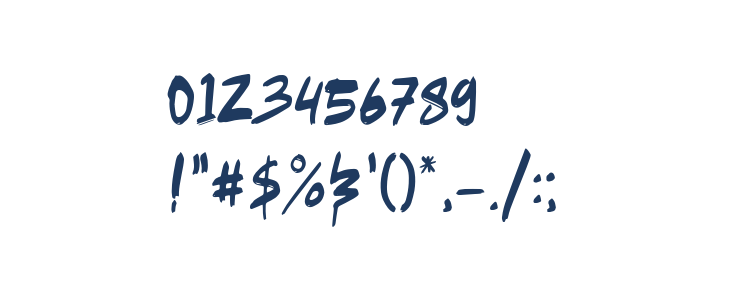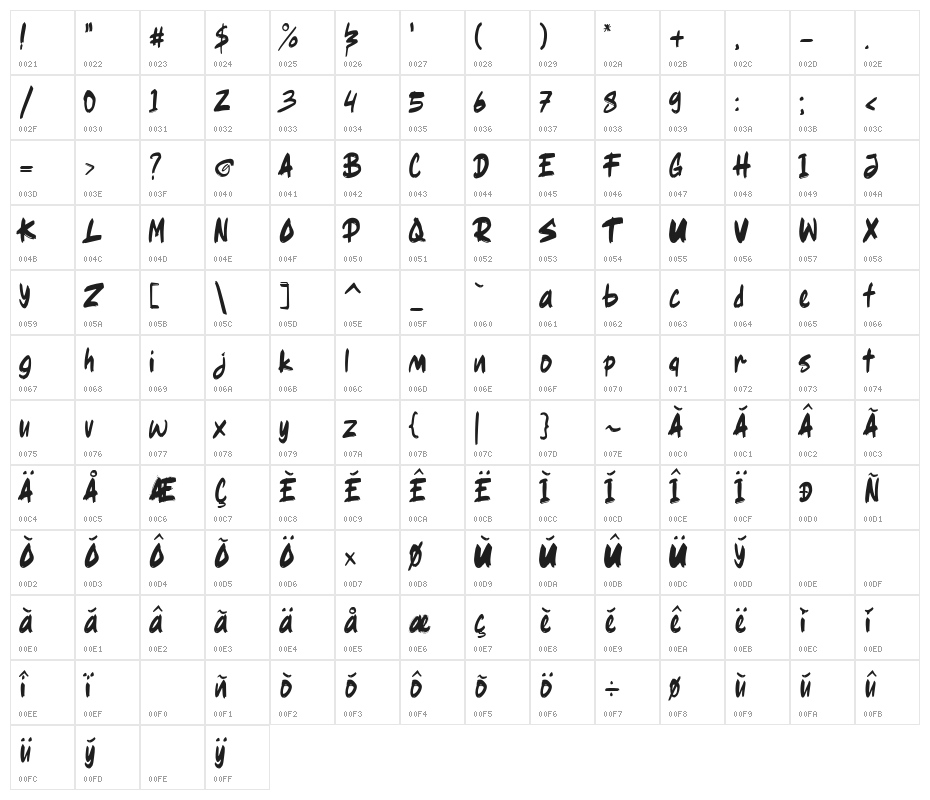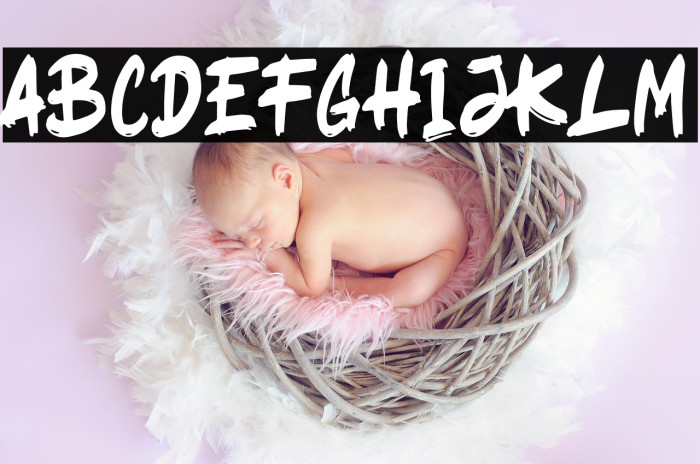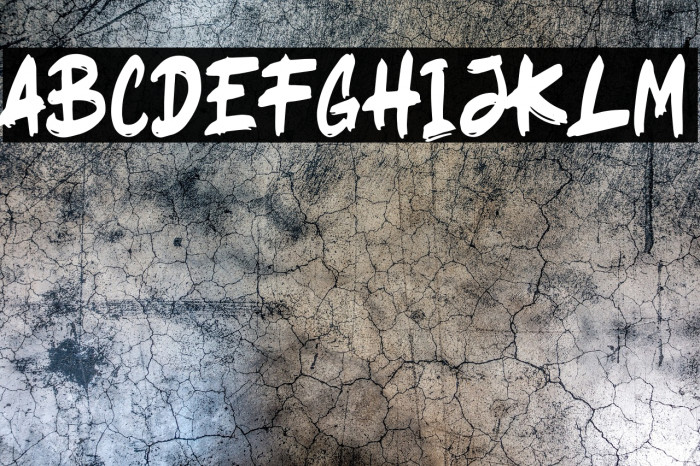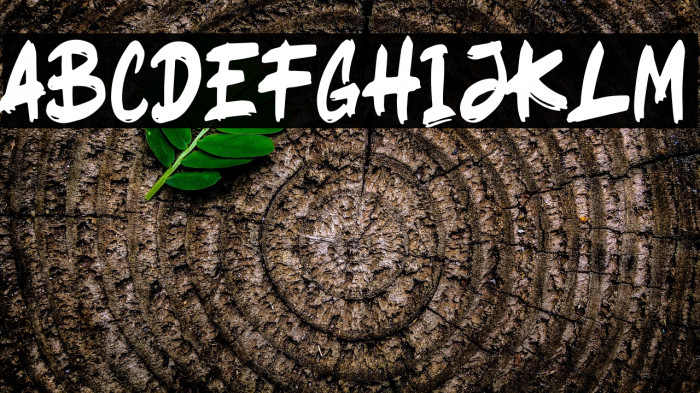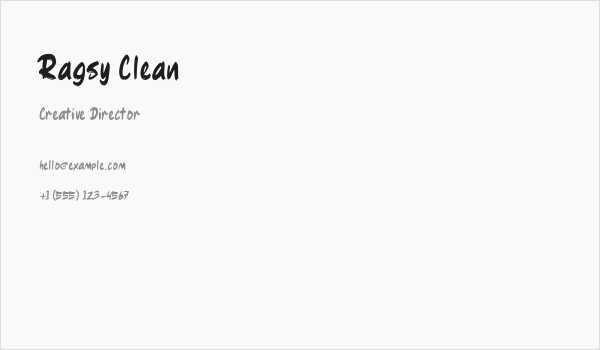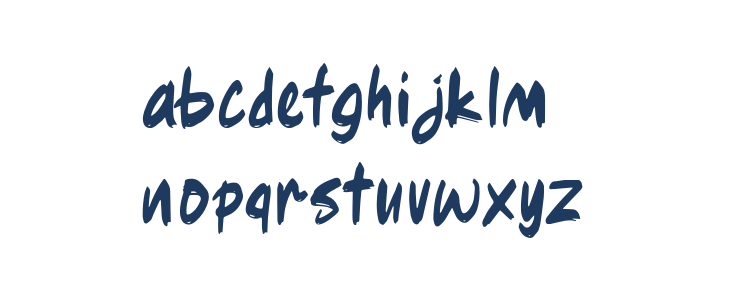
Ragsy Clean Font
Ragsy Clean Description
This font features a bold and energetic handwritten style, characterized by its thick strokes and dynamic flow. The letters have a casual, brush-like appearance, giving them a lively and informal feel. The uppercase and lowercase letters maintain a consistent style, with slightly irregular shapes that add to the font's charm. Numbers and special characters are also designed with the same playful and robust aesthetic, making them stand out. This font's overall look is both modern and artistic, perfect for projects that require a personal touch.